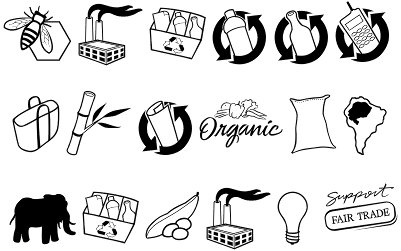
Font Fetish: Save Her
The picture font Save Her from Jess Latham of Blue Vinyl Fonts is made up of 52 one-color drawings related to global warming, renewable energy sources, organic produce, recycling, and fair trade.
Here are a few samples of the font: